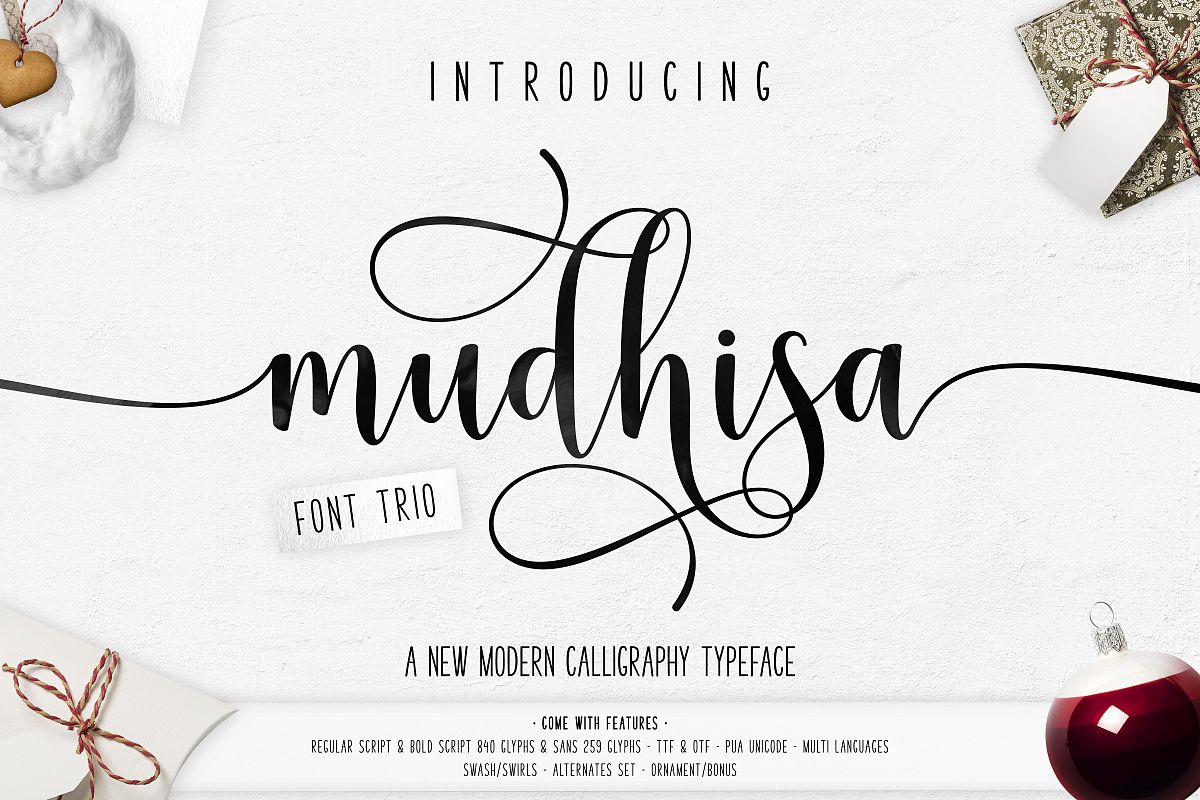
Mudhisa Script Font Trio
Mudhisa Sans
Mudhisa Bold
Mudhisa Scrip
Introduce my new font Mudhisa Script is a handwritten calligraphy with the kind of modern hand scratches. This typeface has been enriches with additional alternates characters up to 840 glyphs (Standard & Bold). Works perfectly for logos, fashion, stationery, letterpress, magazines, menus, books, invitations, wedding / greeting cards, packaging, labels, apparel, marketing etc.
• Basic Latin A-Z and a-z
• Symbols
• Stylistic Sets
• Swash/Swirls
• Script 840 Glyphs (Standard & Bold)
• Sans 259 Glyphs
• Latin Pro Support Character